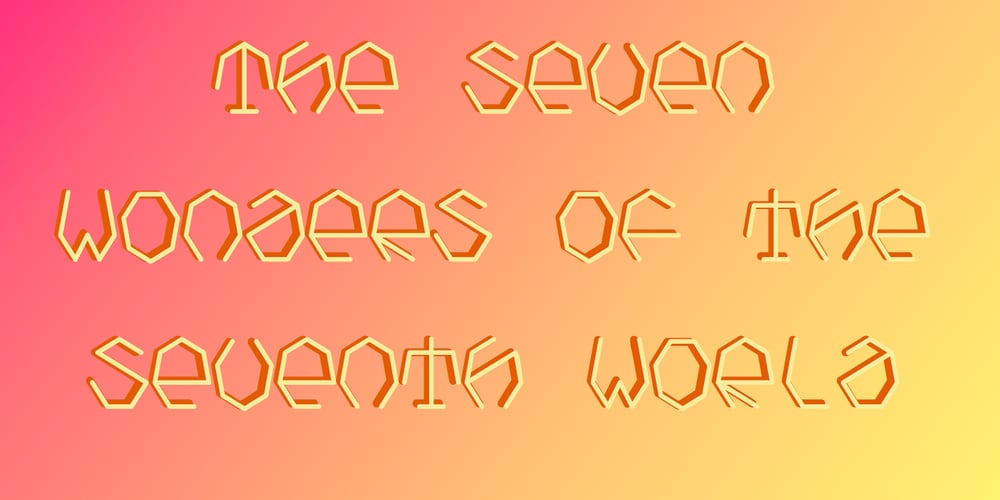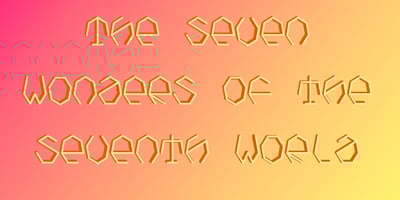
Heptagroan Mono Font Family was designed by Robert Schenk and published by Ingrimayne Type. Heptagroan Mono contains 2 styles and family package options. If there is ever a need for a heptagonal font, that is, a font based on a seven-sided polygon, Heptagroan may fit the bill, unless the need is also for true lower-case letters. Heptagroan is caps only, though some of the caps on the lower-case keys differ from those on the upper-case keys. Heptagroan is monospaced and is available in two weights.